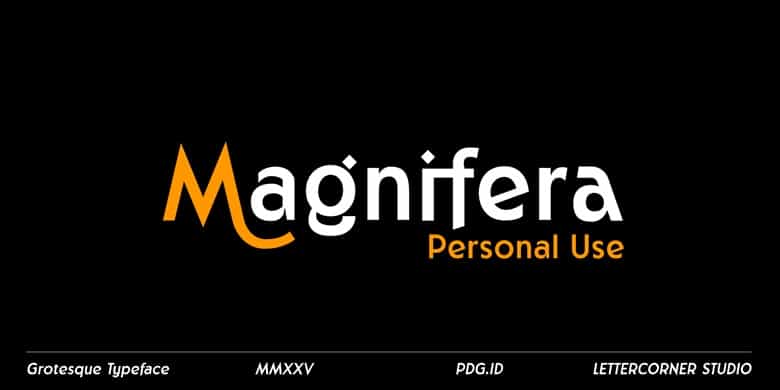
Discover Magnifera Font, part of the Sans Serif collection—a versatile and unique font perfect for adding a personal touch to your projects. Download it for free and enjoy crafting designs with style, from invitations to social media posts. This font is available exclusively for personal use, giving you the freedom to create without limits. Unlock your creativity with Magnifera Font today!
Magnifera is a clean sans serif typeface. All are designed to provide maximum flexibility to serve a large variety of design needs. For designers after function with a dash of style, this collection is a good choice.